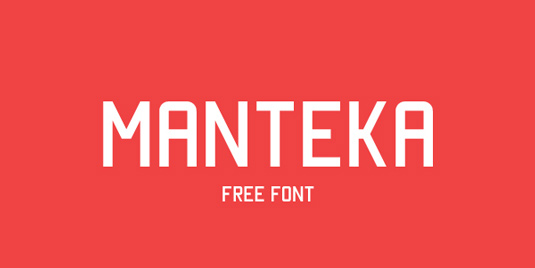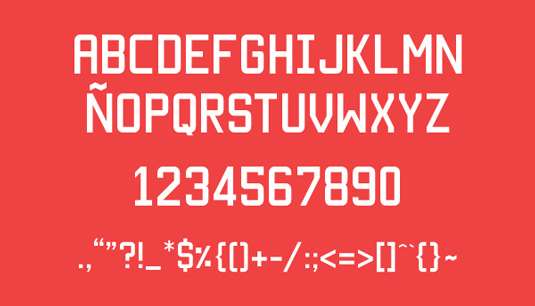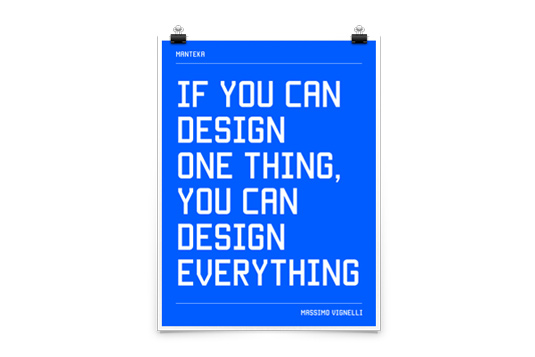
Font of the day: Manteka
Every day we showcase the best fonts on the web. Today it's Manteka by Edu Araya, which is totally free to download.
Manteka by Edu Araya
Today's font of choice was created by designer Edu Araya, developed from a curosity he had for typefaces and their design process. "It is especially designed for use in print, but equally has a spectacular performance in web," Araya comments.